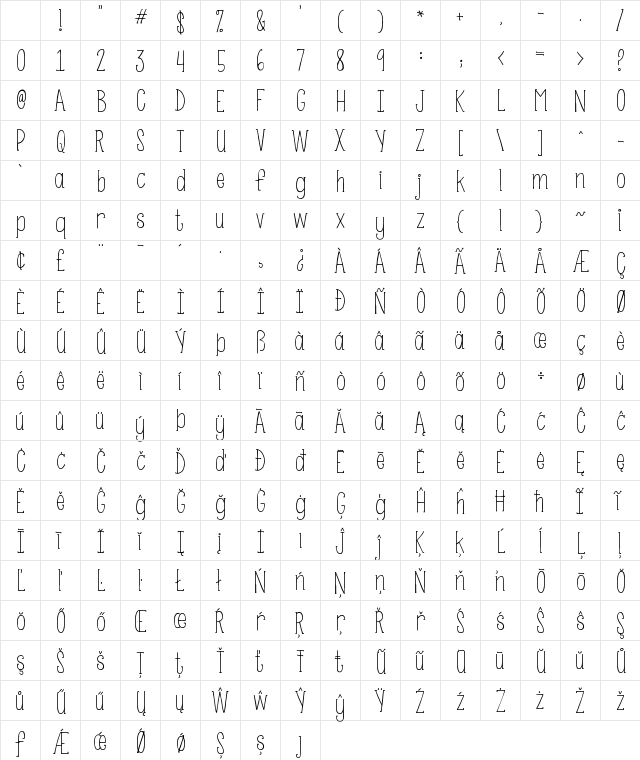
Complete KG Somebody That I Used to Know Regular glyph index. Displaying only characters natively supported by KG Somebody That I Used to Know Regular font.
KG Somebody That I Used to Know is a composed and adaptable typeface that performs quietly and consistently across a wide range of design contexts.